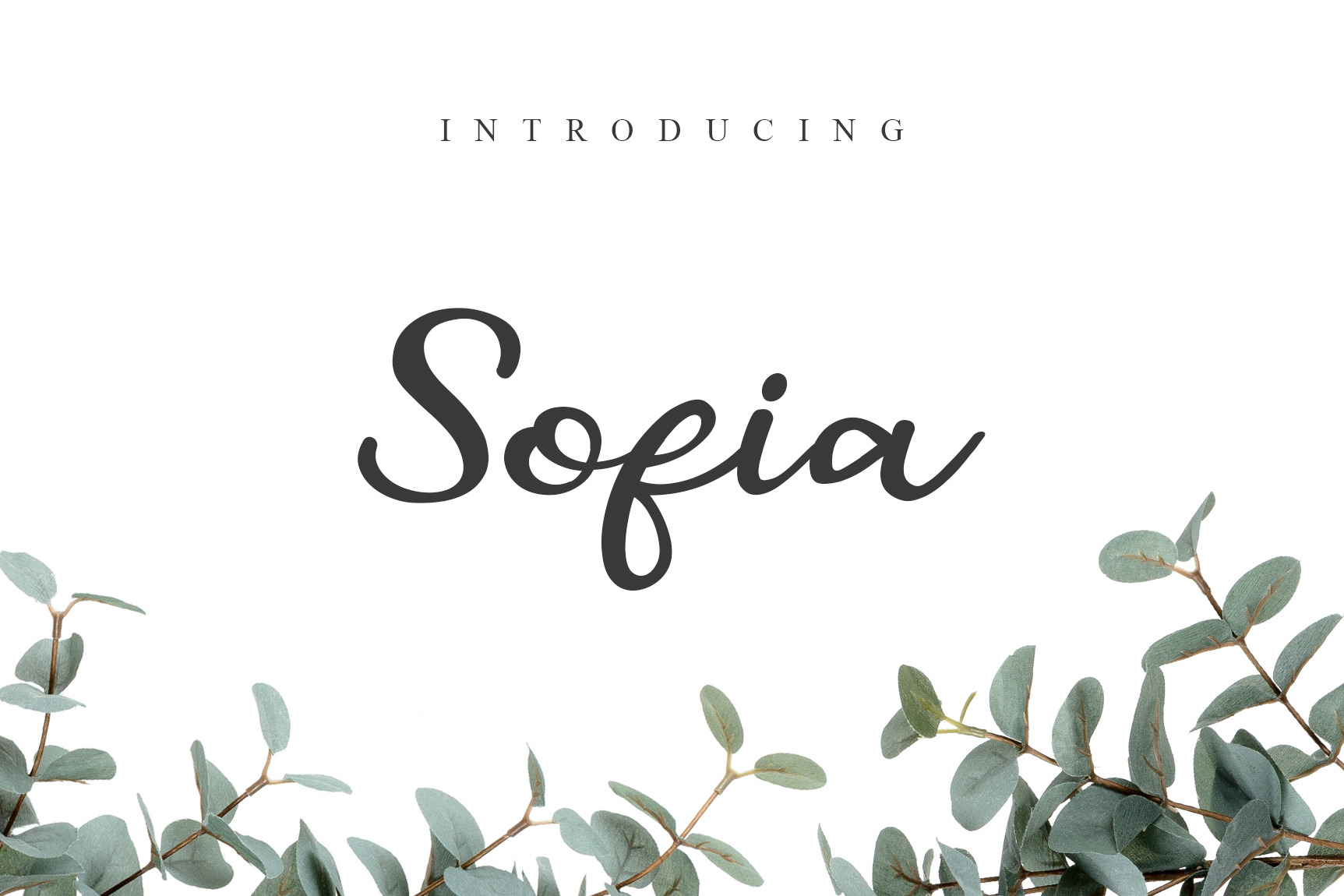
Sofia Script Font
Introducing Sofia script font! It allows you to create stunning and easy hand-lettering in an instant. Ideal for the logo, quotes, wedding, product label/packaging, fashion, letter, advertising, invitation, poster, merchandise, greeting cards, etc